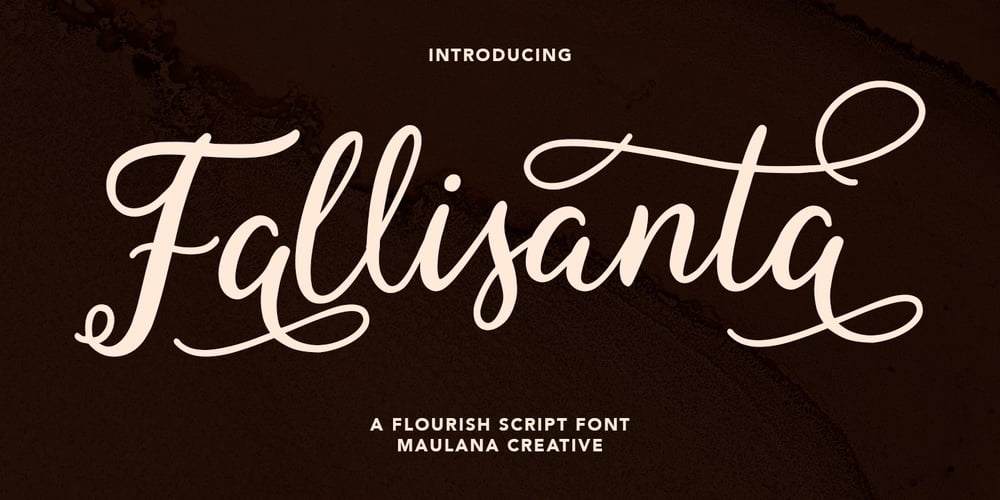
Fallisanta Font Family was designed by Gilang Maulana and published by Maulana Creative. Fallisanta contains 1 styles and family package options. Fallisanta is a flourish script font with a little bit retro vibes and cursive high contrast stroke. Fallisanta includes opentype features Ligatures and Alternate lowercase flourish. It support multilingual more than 100+ language. This font is suitable for logo design, Movie Titles , Books Titles and any awesome project you create. Make stunning work with Fallisanta flourish font. Cheers, MaulanaCreative